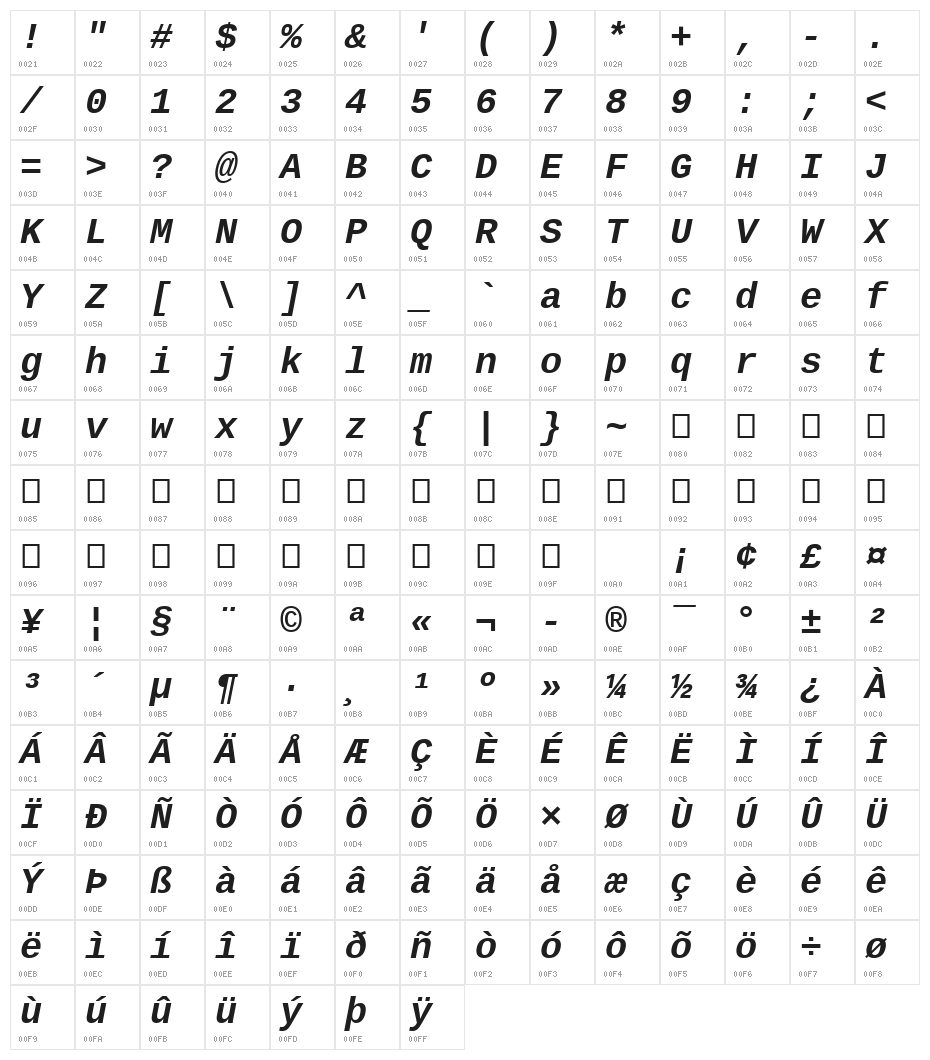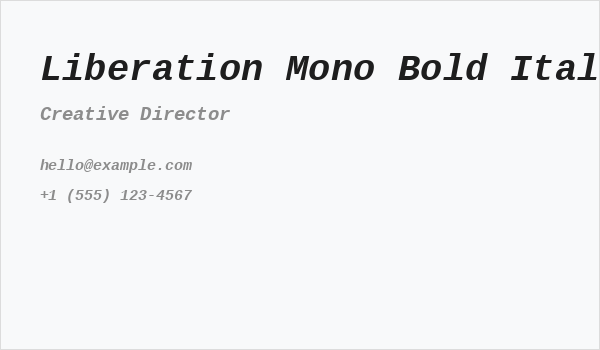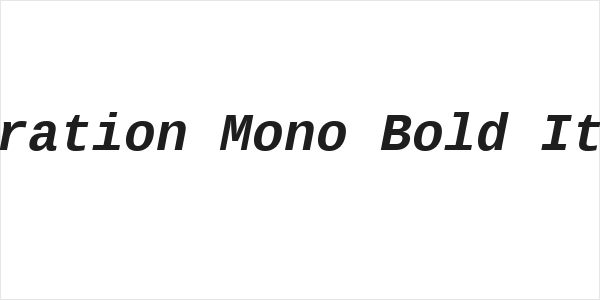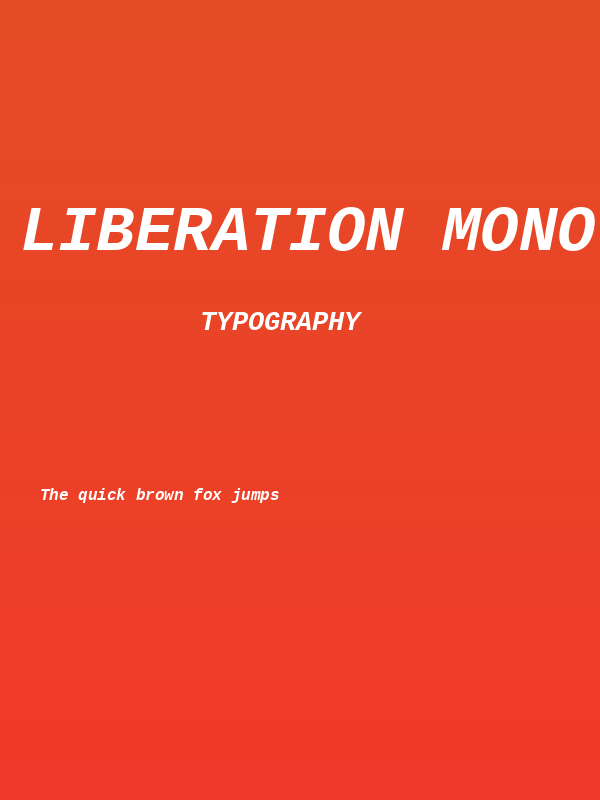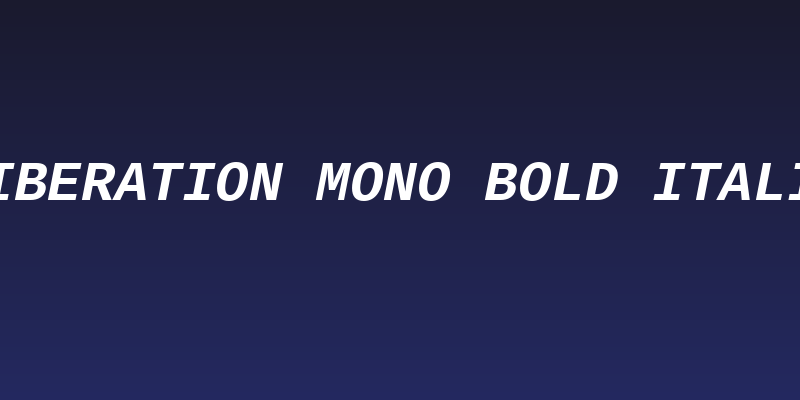
Liberation Mono Bold Italic Font
Liberation Mono Bold Italic Description
This font is a monospaced typeface characterized by its bold and italicized style, offering a uniform width for each character. The design is clean and modern, with a slight slant that adds a dynamic feel. The bold weight ensures strong visibility, making it suitable for coding environments where clarity is crucial. The italic style introduces a sense of motion and emphasis, enhancing readability and aesthetic appeal. Its consistent character width is ideal for aligning text in columns, which is essential in programming and tabular data presentation. The font maintains a balanced contrast, ensuring that each letter stands out distinctly without overwhelming the reader.
Use CaseCoding, Technical documentation, Data tables
Proposed ProjectsIdeal for coding, technical documentation, and any project requiring aligned text columns.